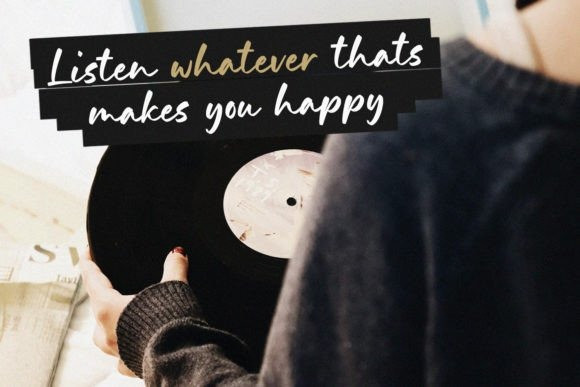
Bright Summer Font
Proudly Present, Bright Summer Brush Font, A Handwritten Font , which was created with great care and specially created for you
Bright Summer is perfect for product packaging, branding project, megazine, social media, wedding, or just used to express words above the background.